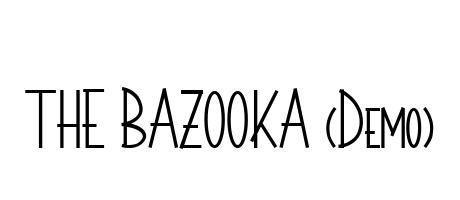
The Bazooka
By Faris Fonts Creative
The Bazooka (Demo): This font possesses a striking, slightly aggressive personality. Its clean lines and sharp angles give it a modern, almost geometric feel, yet the slightly uneven letter heights add a touch of hand-drawn character. The overall effect is bold and memorable, suitable for a title or heading demanding attention.